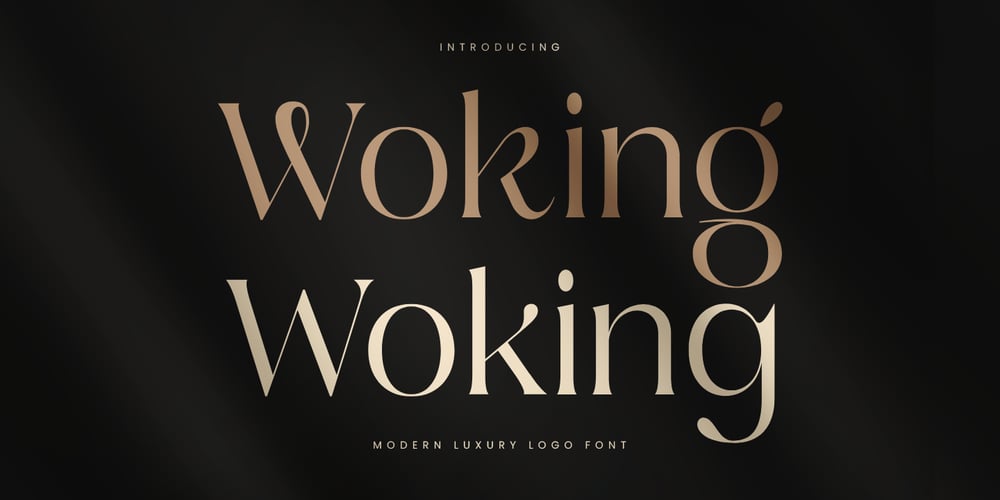
Woking Font Family was designed by Zamroni Hamzah and published by Sensatype Studio. Woking contains 1 styles and family package options. Introducing Woking, the epitome of luxury and elegance in logo design. Woking is a serif font crafted to bring sophistication and class to your branding projects.Woking Font Features: Elegant Design: A luxurious serif style perfect for high-end branding and logo creation. Versatile Usage: Ideal for logos, branding, invitations, and upscale designs. Multiple Formats: Available in formats for flexibility. Refined Aesthetics: Sleek and stylish, ensuring your designs stand out. Inspirational Previews: Includes sample designs to spark your creativity. Elevate your brand with Woking, a font that exudes sophistication and timeless elegance. Whether for creating stunning logos or refined typography, Woking brings a touch of luxury to all your design projects. Make a lasting impression with Woking’s high-end style and impeccable design.